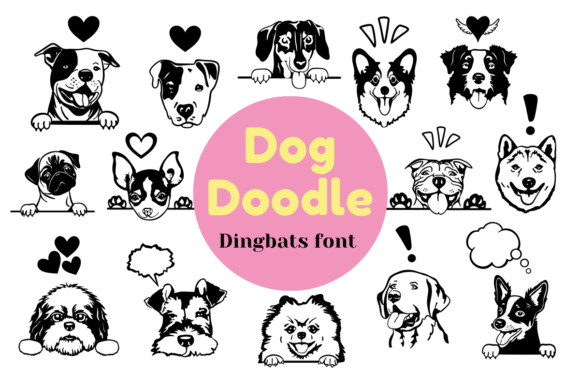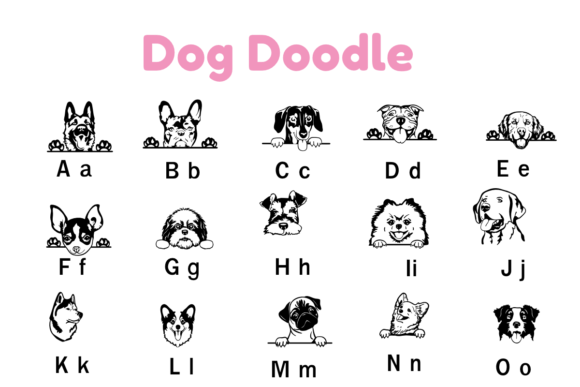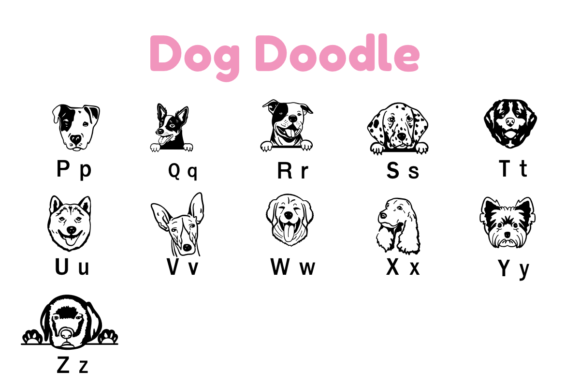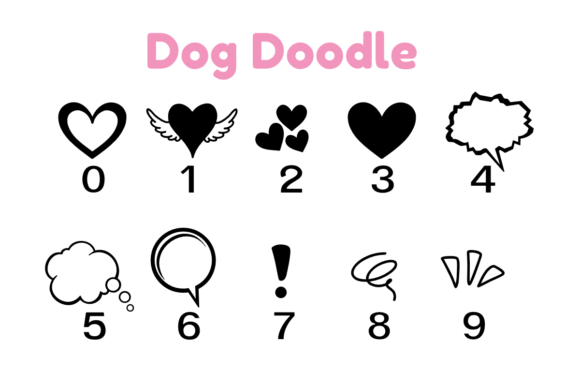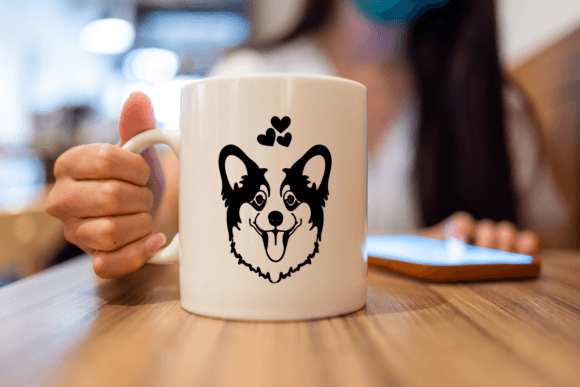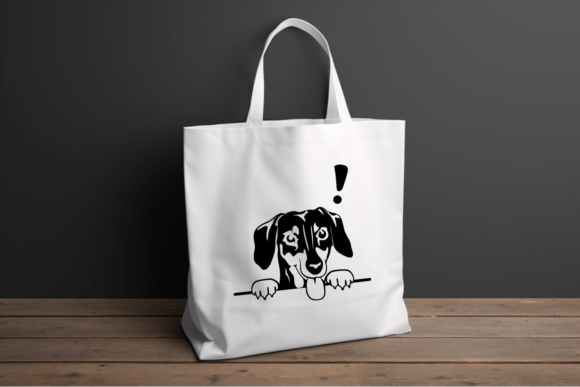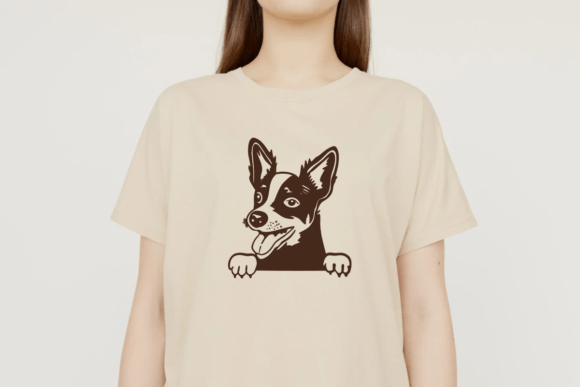
Dog Doodle Font
Dog Doodle is a dingbats font with a canine style. This font can enhance your creative projects such as wedding invitations, DIY, crafts, decorations, logos, and many other creative ideas.